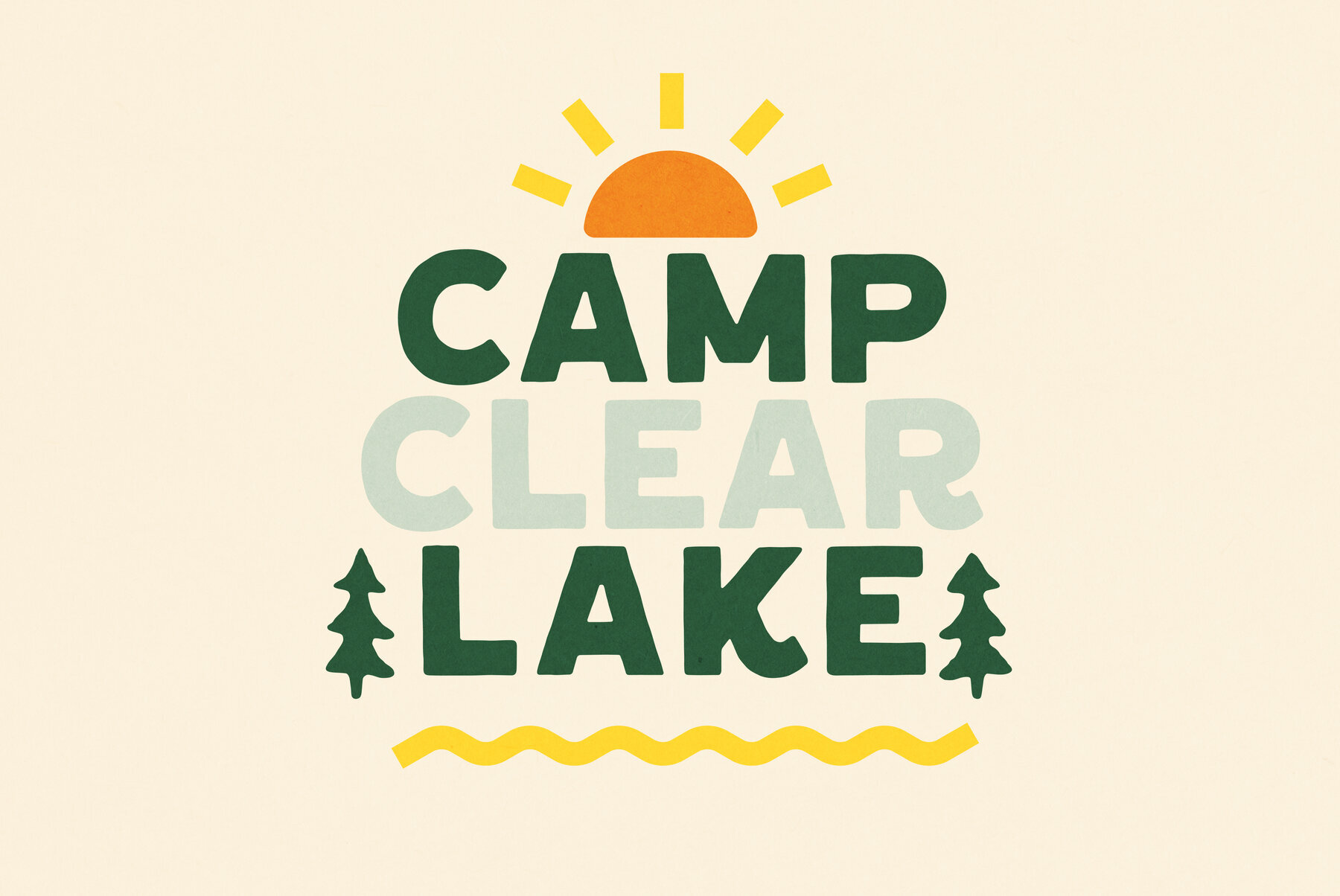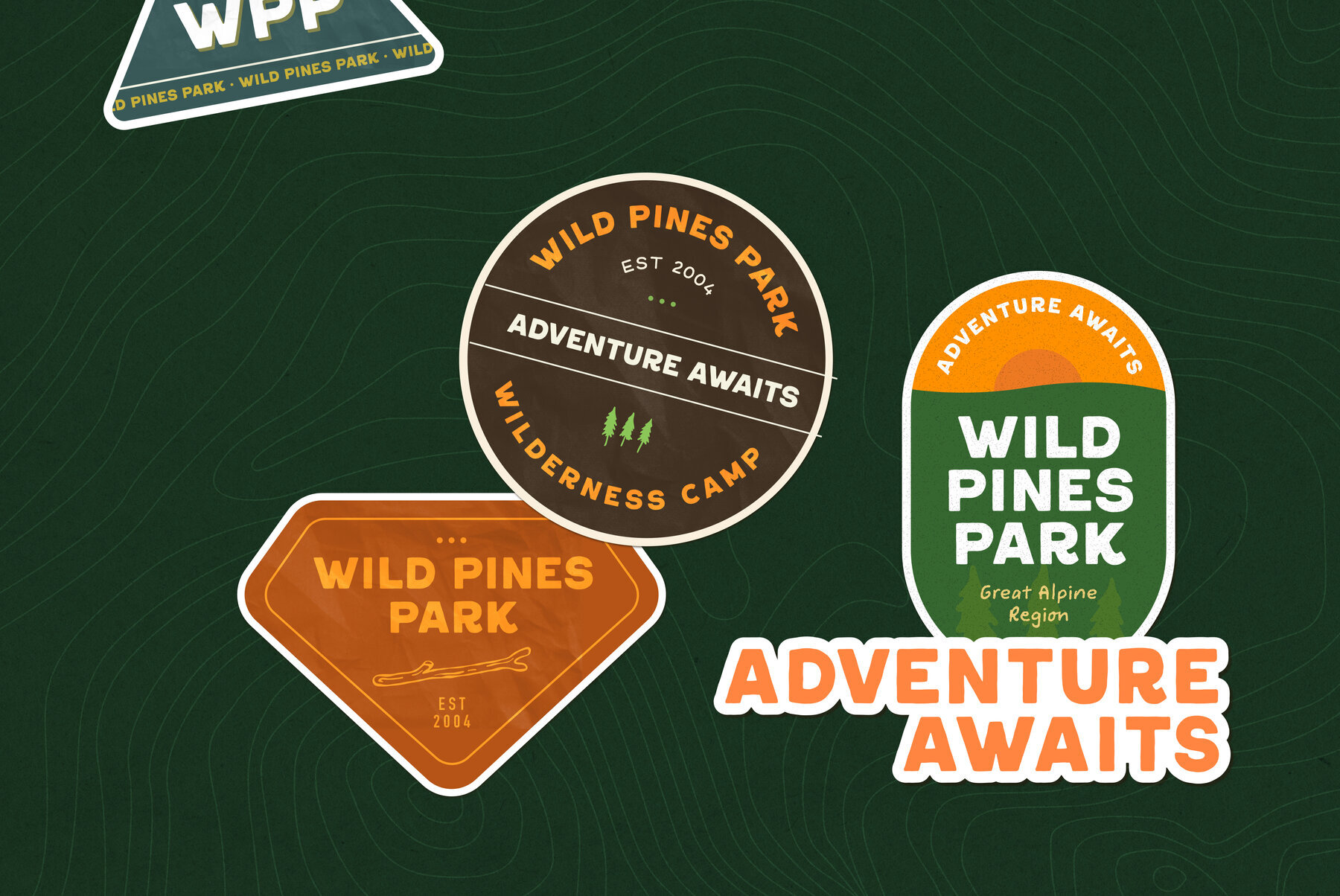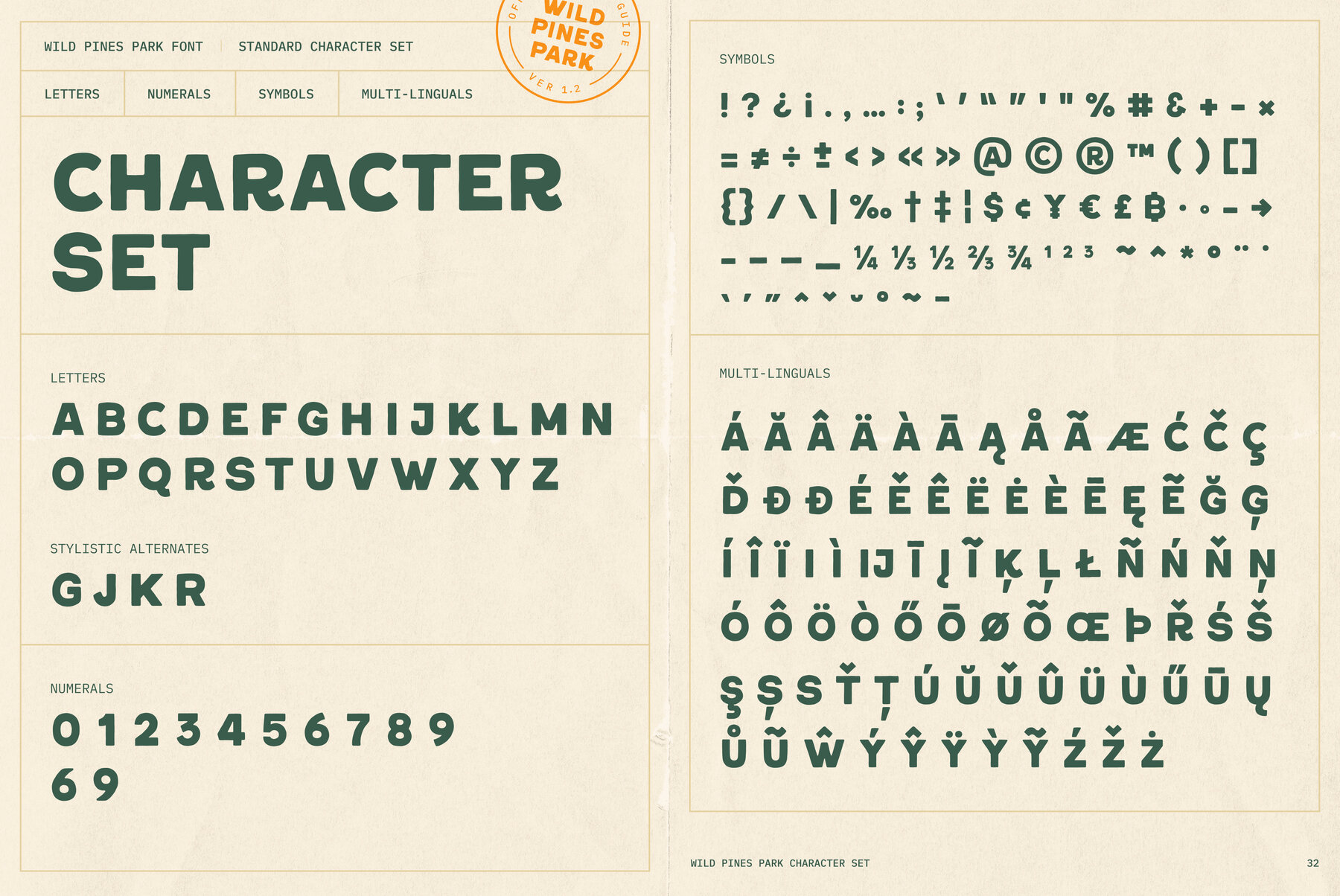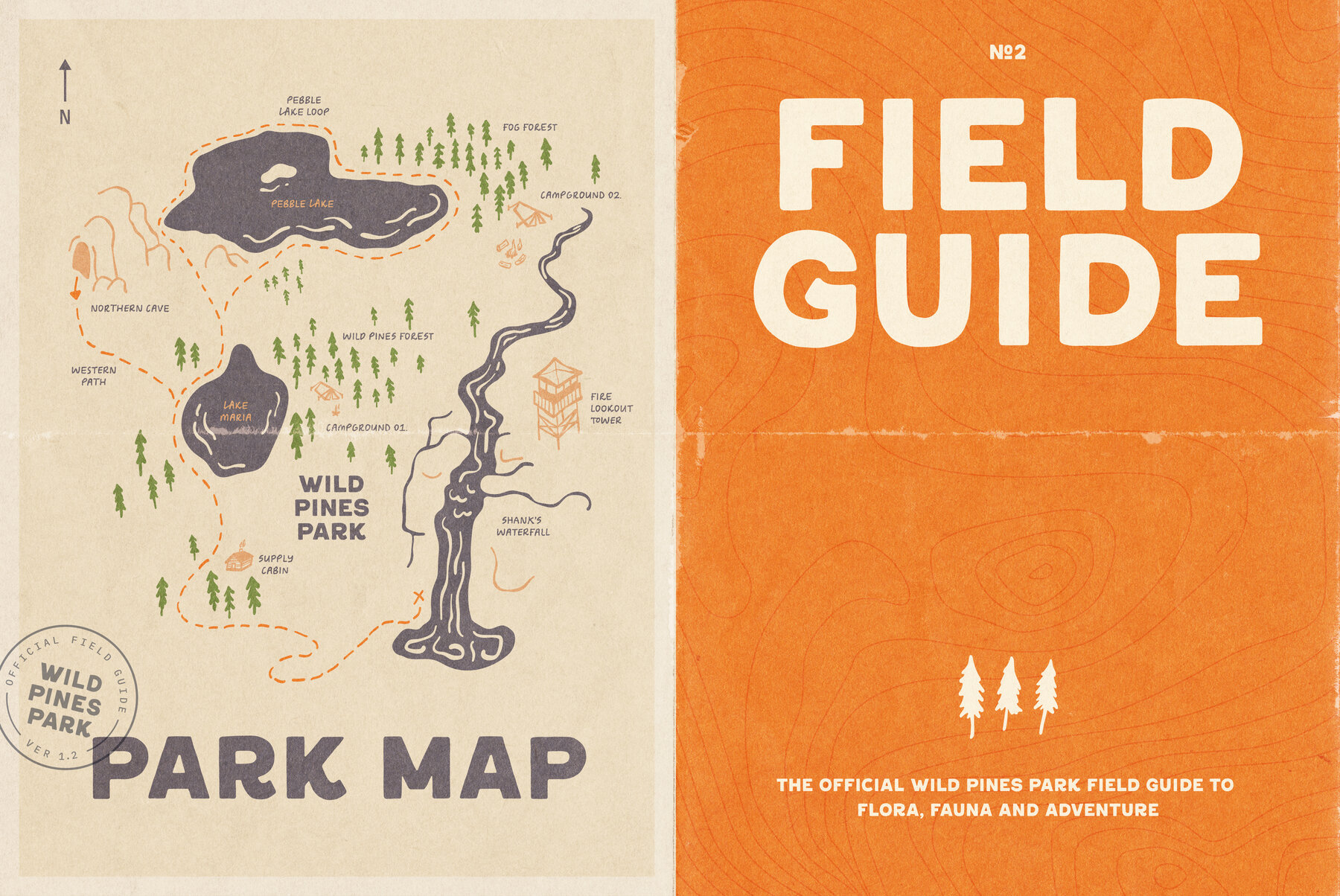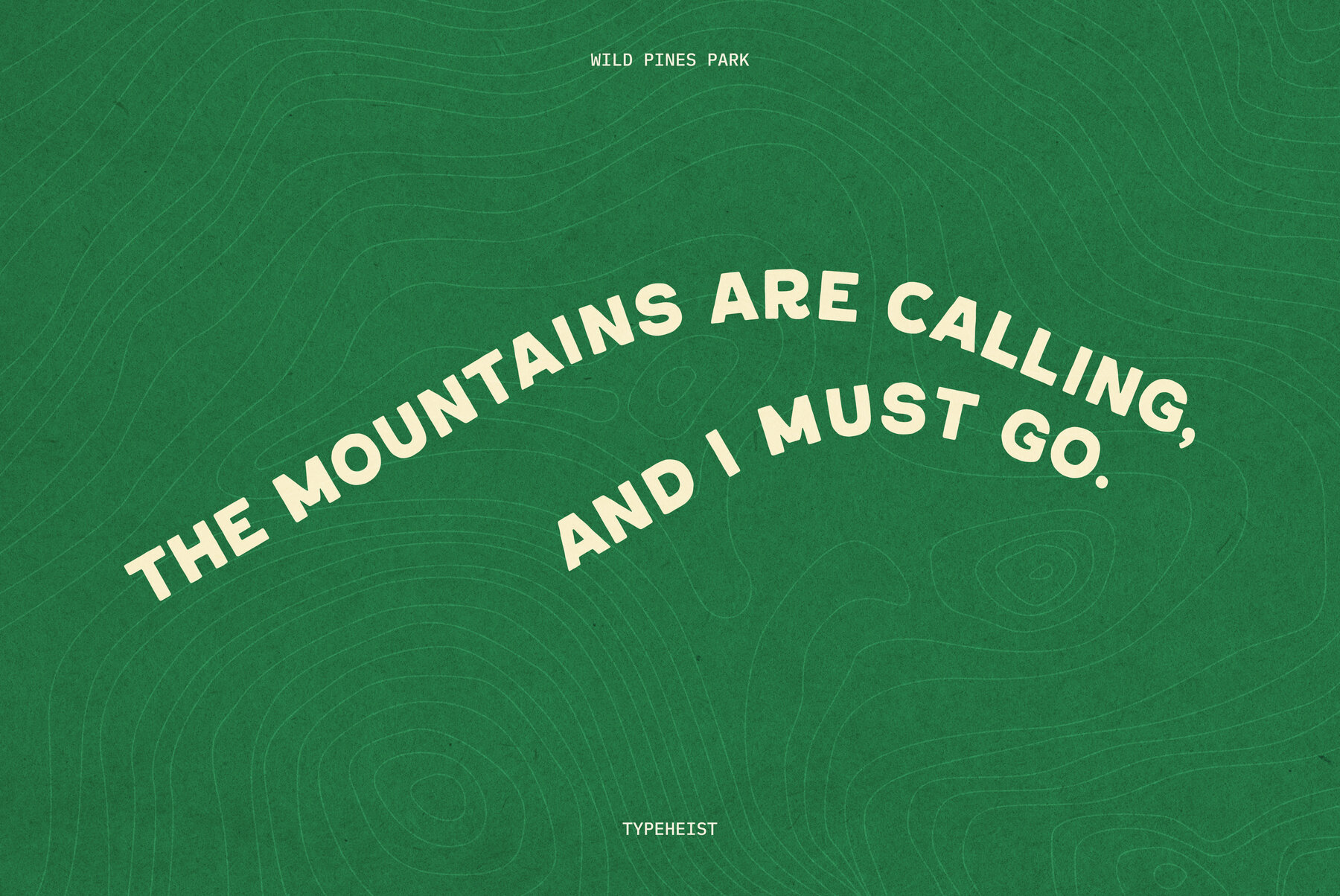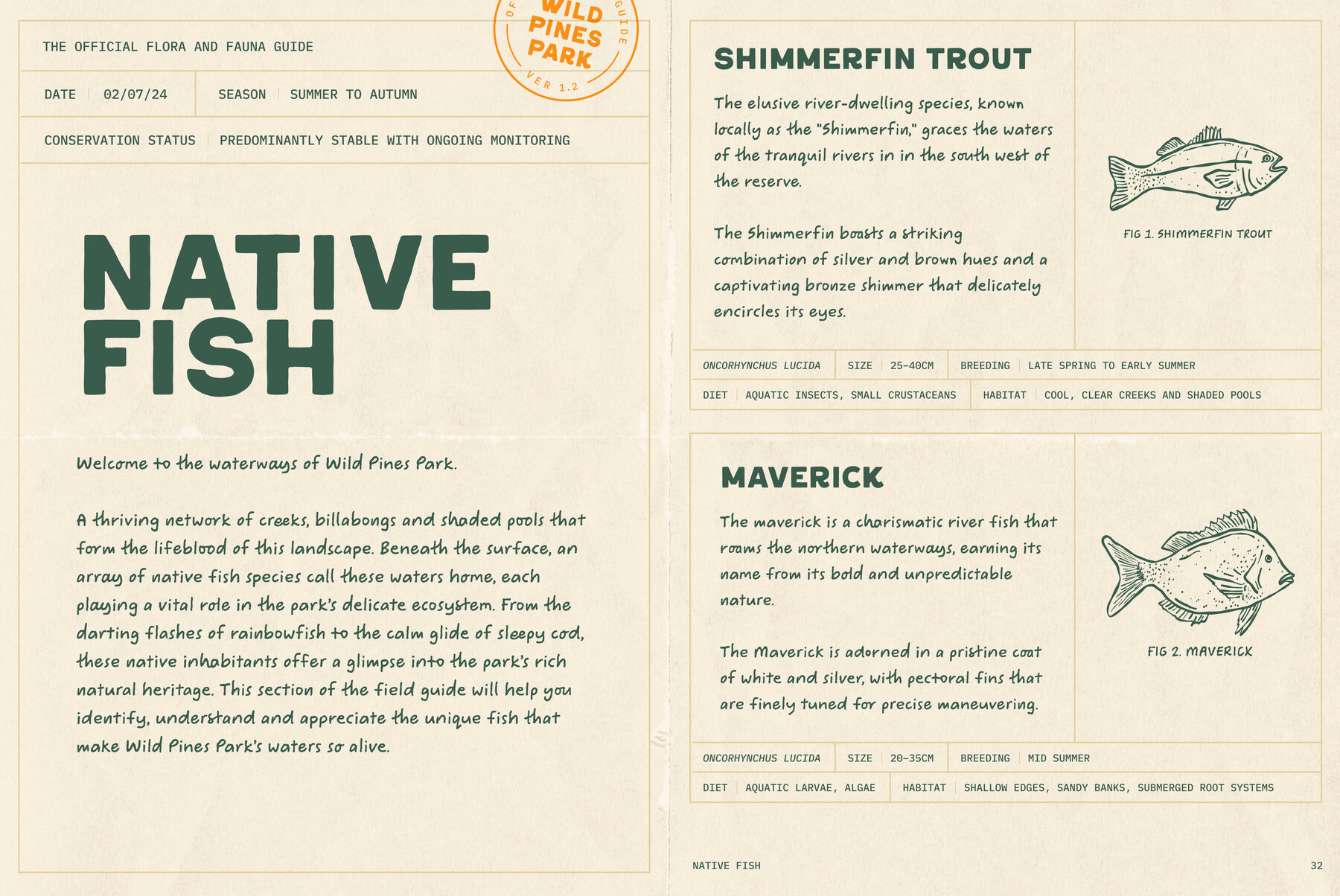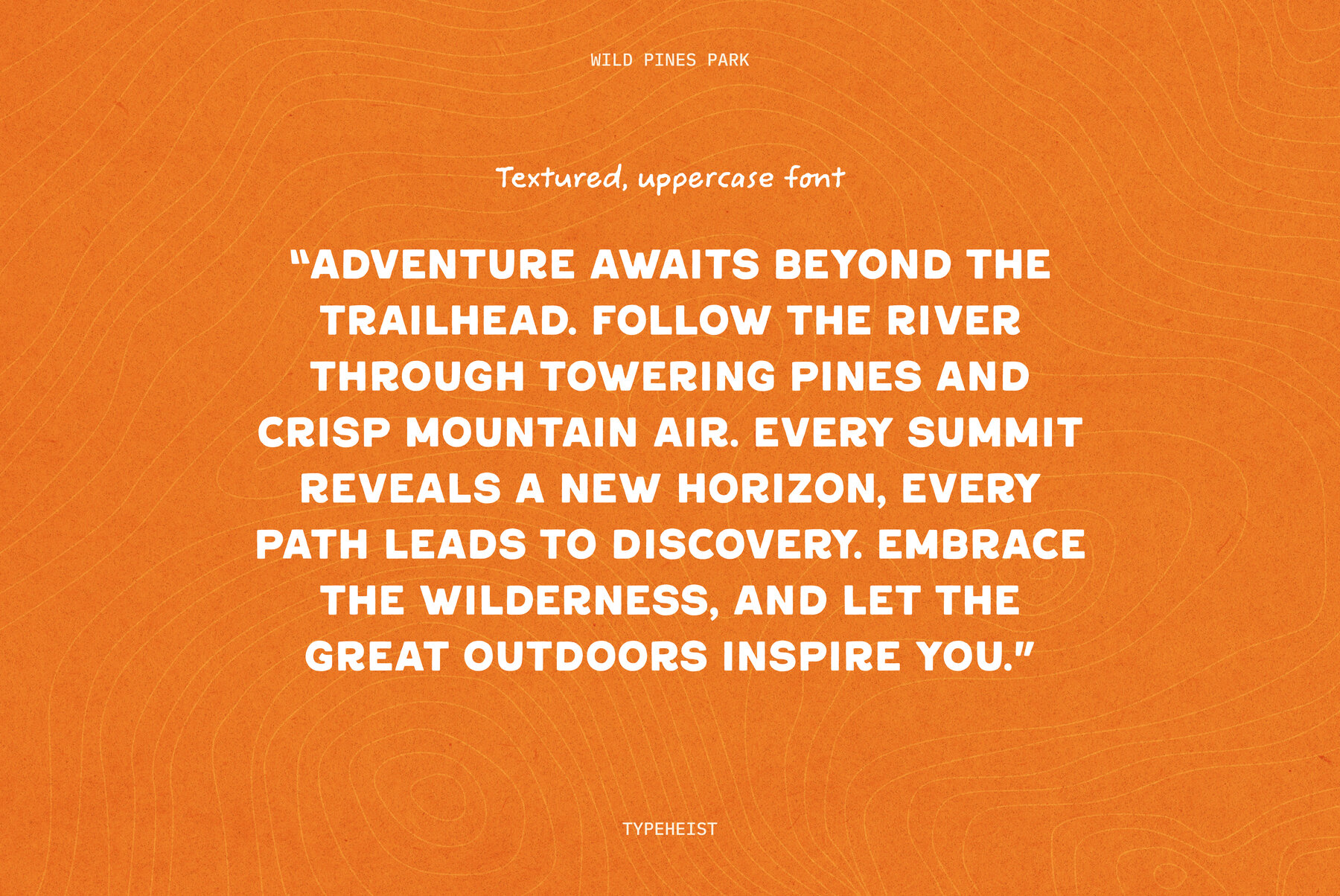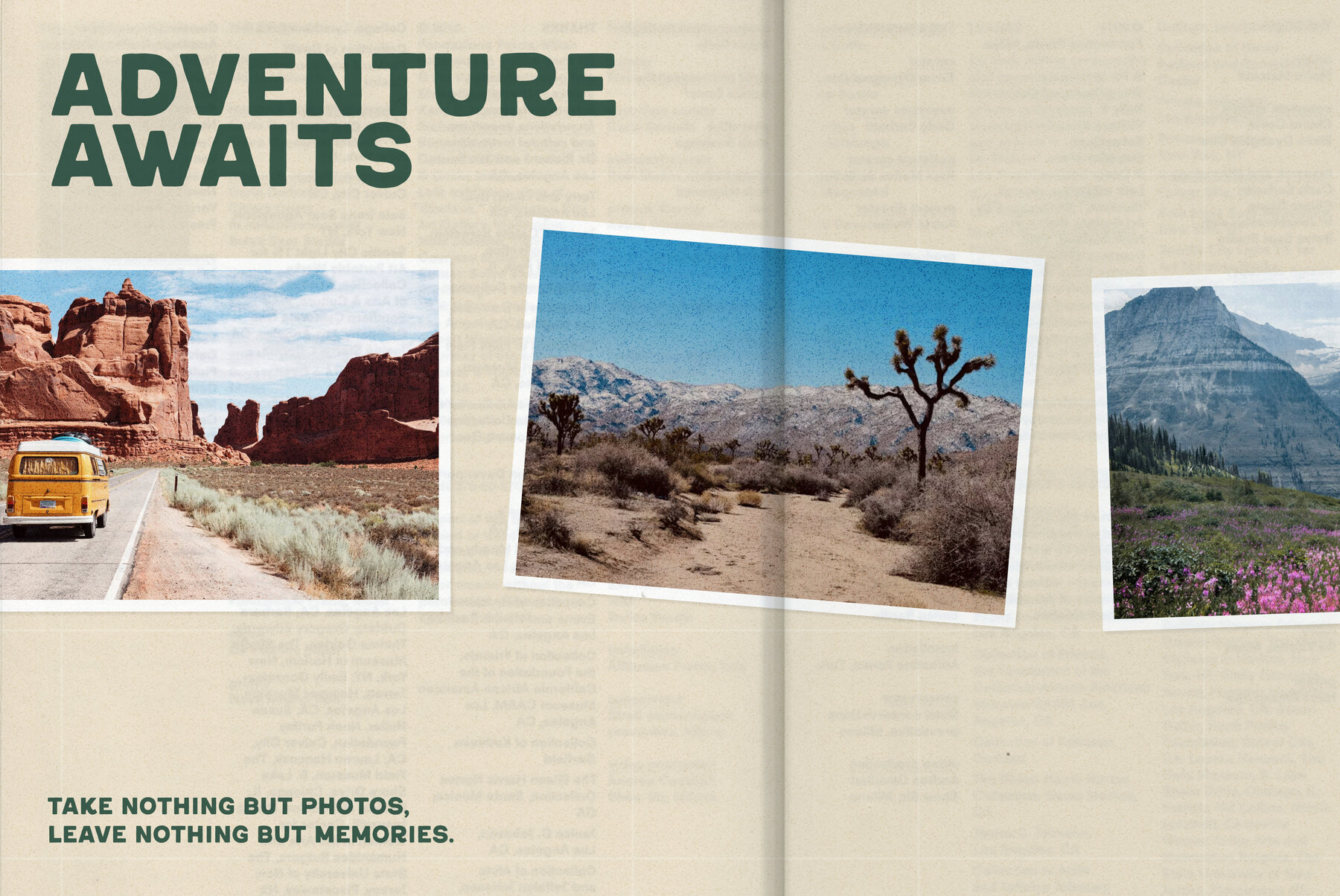
Wild Pines Park Font
Wild Pines Park Regular
Wild Pines Park is a nostalgic, national park-esque font with a subtle ruggedness and Americana charm. Transport yourself to a bygone era, equipped with your handy field guide notebook, as you venture into the wilderness. This attention-grabbing display font boasts a commanding yet comforting presence. Its unique characters (check out the K, R and G) add a playful touch to its bold nature. Wild Pines Park is an all uppercase font with a bunch of contextual alternates and special characters. Each character has a slightly rough and textured edge, giving Wild Pines Park its natural and realistic look. Make it big and bold and it looks even better. Let Wild Pines Park add that special vintage charm to your designs.